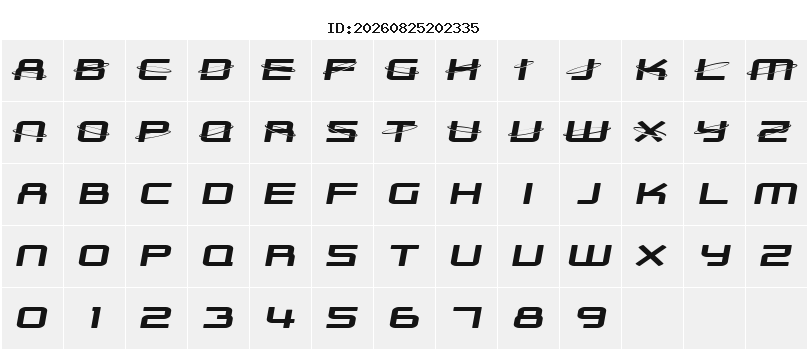
SF Outer Limits Extended Preview
• Font Name: SF Outer Limits Extended
• Font ID: ShyFontsTypeFoundry: SF Outer Limits Extended: 1999
• Full Font Name: SF Outer Limits Extended
• PostScript Name: SFOuterLimitsExtended
• Designer: ShyFonts Type Foundry
About SF Outer Limits Extended.ttf
SF Outer Limits Extended.ttf is a modern, elegant sans-serif font designed for ultimate readability and visual harmony. Perfect for branding, headlines, web design, and print materials.